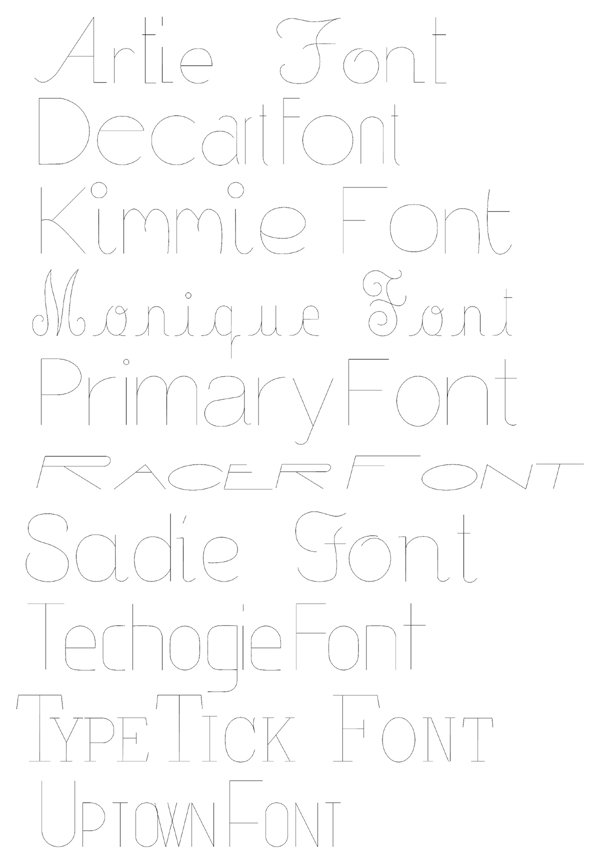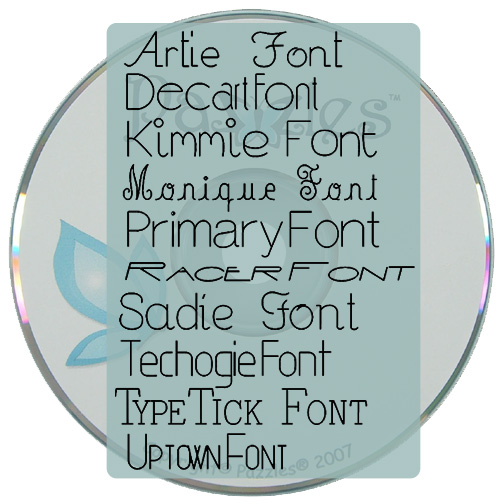
Journaling Font 1 - Physical Media (CD)
Journaling fonts are a single stroke font that work beautifully when using the pen, embossing, needle piercing or engraving tool. Most fonts will appear as an outline of each letter, journaling fonts appear as a single stroke like they would if you were hand writing your message. Want to add journaling to your project but hate your handwriting? Use journaling fonts with the pen tool and you will have a perfectly written message every time. Our CD includes 10 exclusive journaling fonts that you can't find anywhere else!